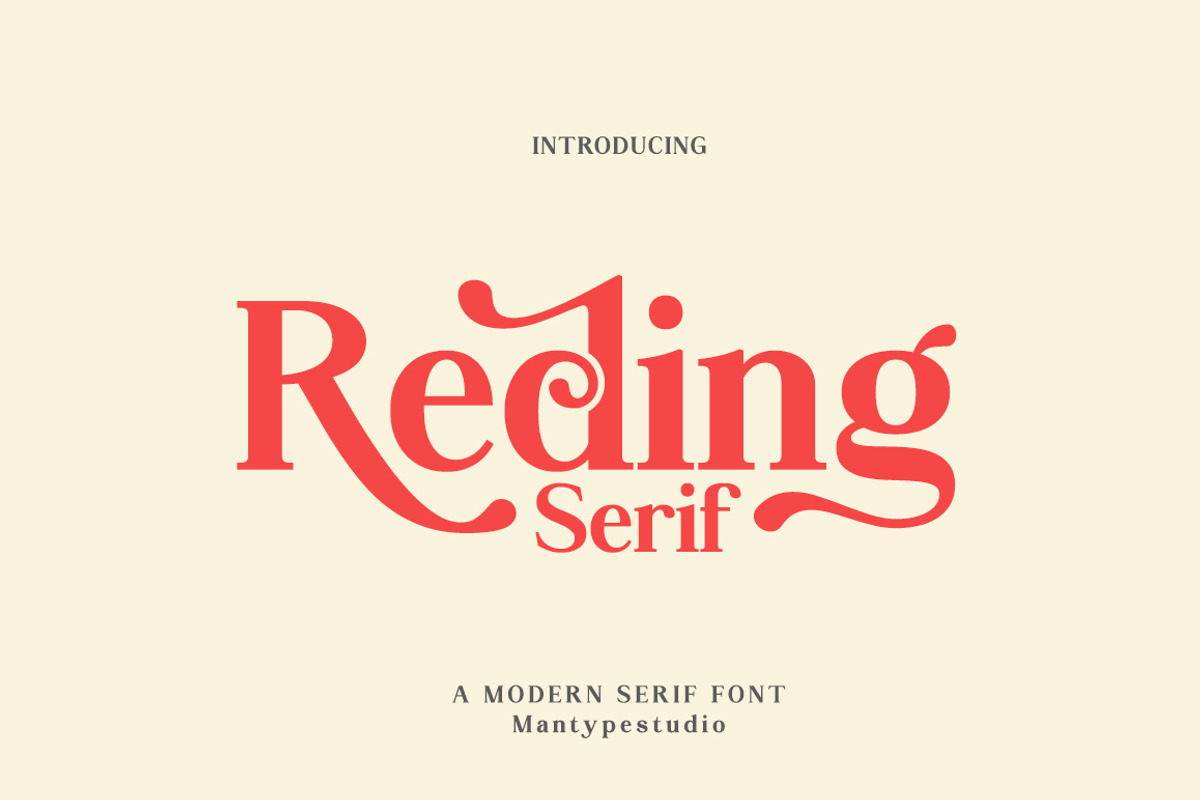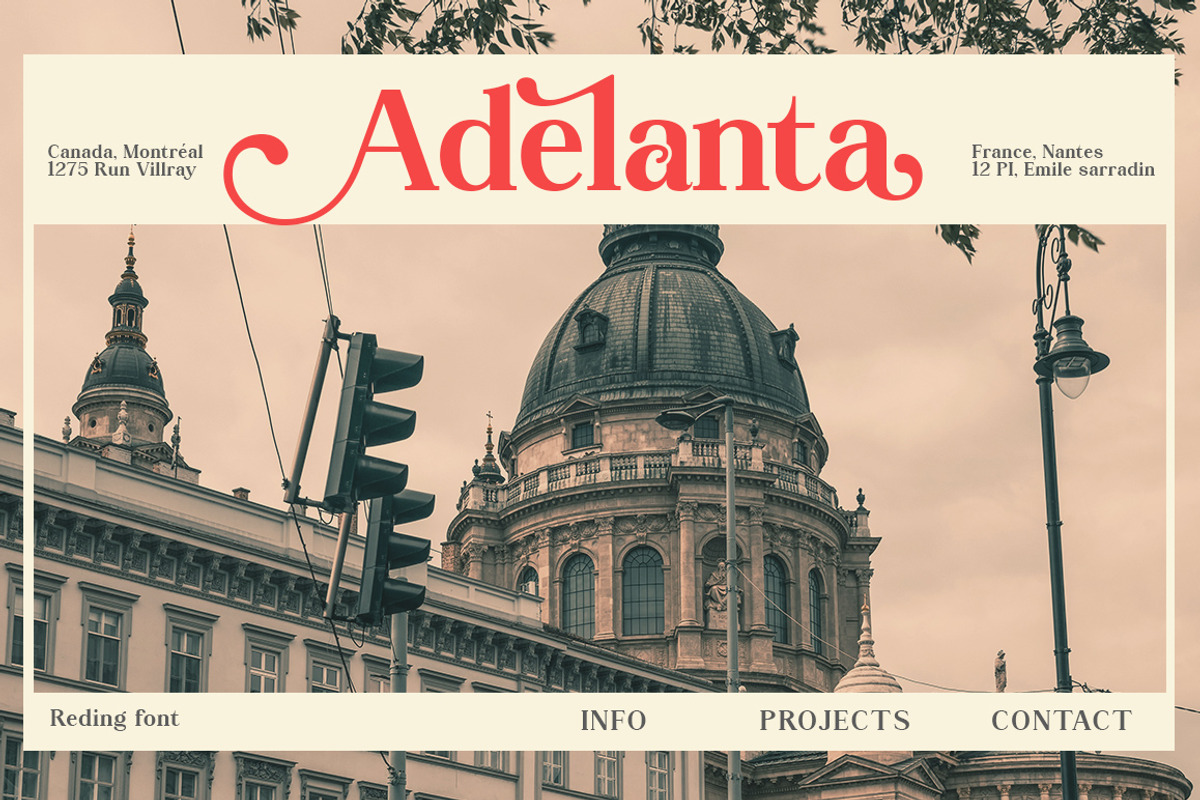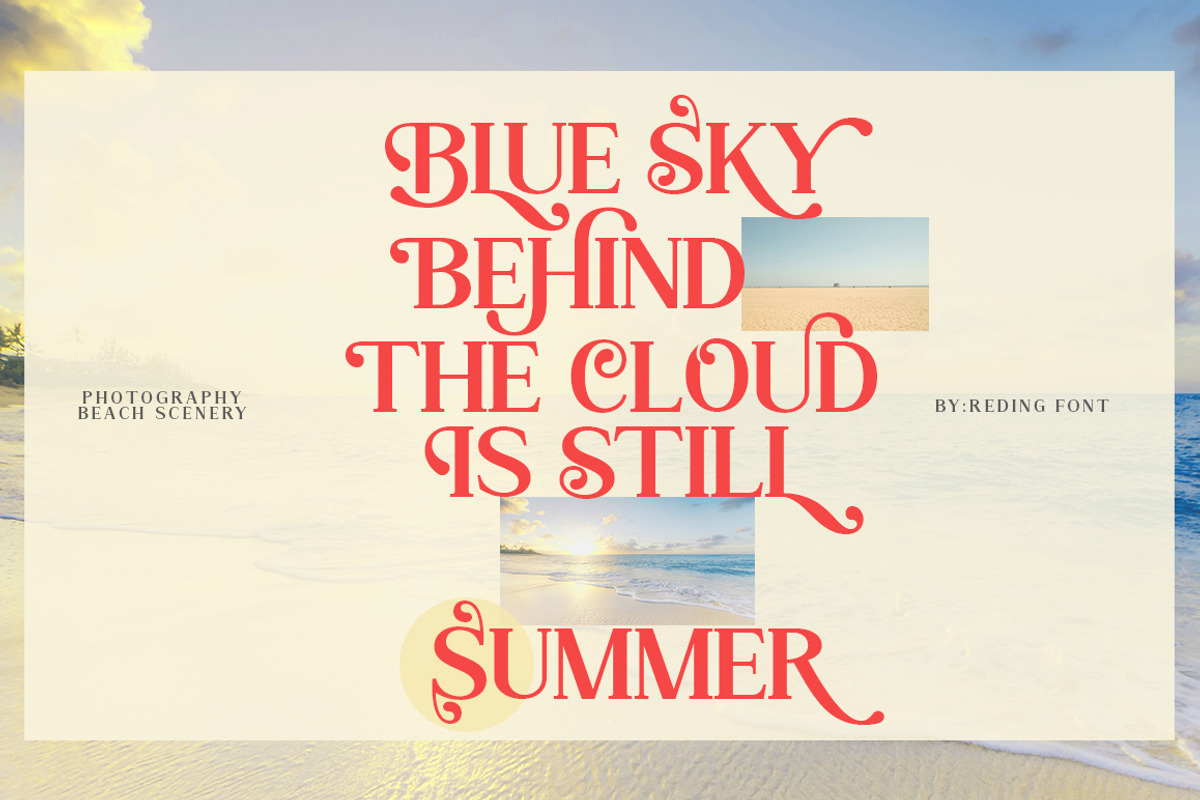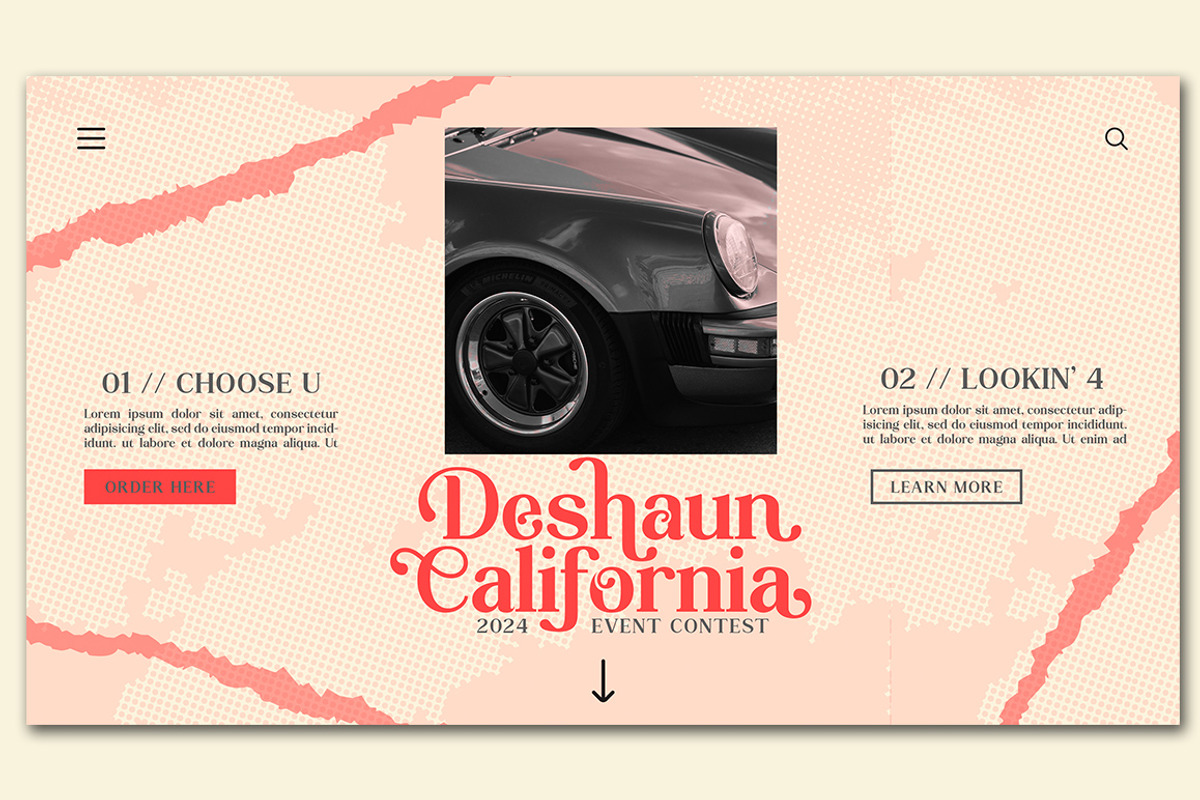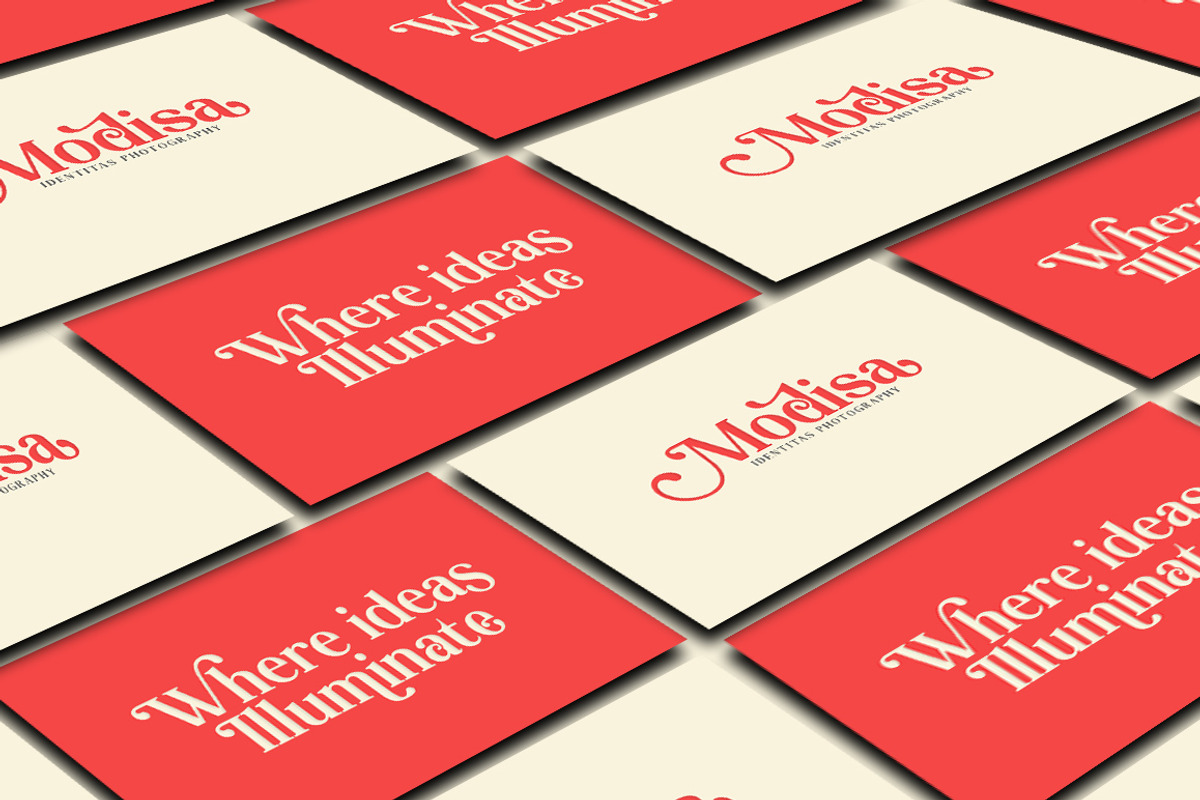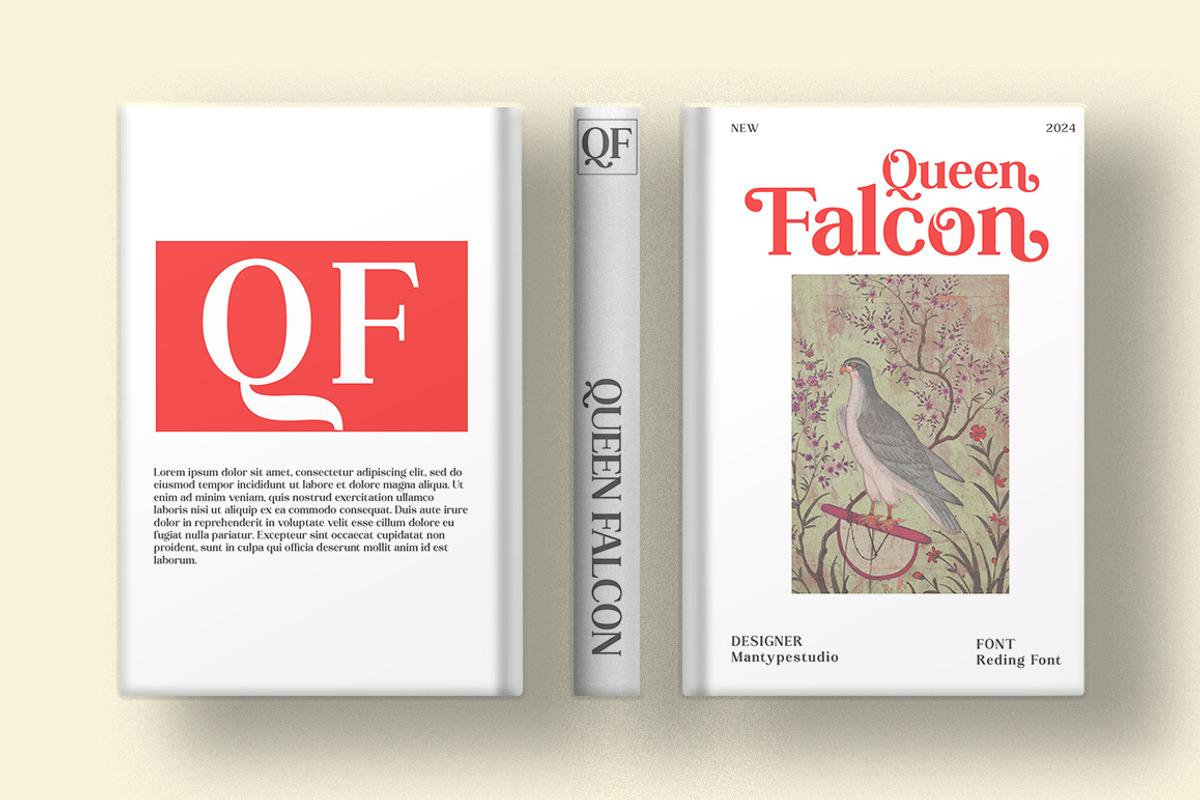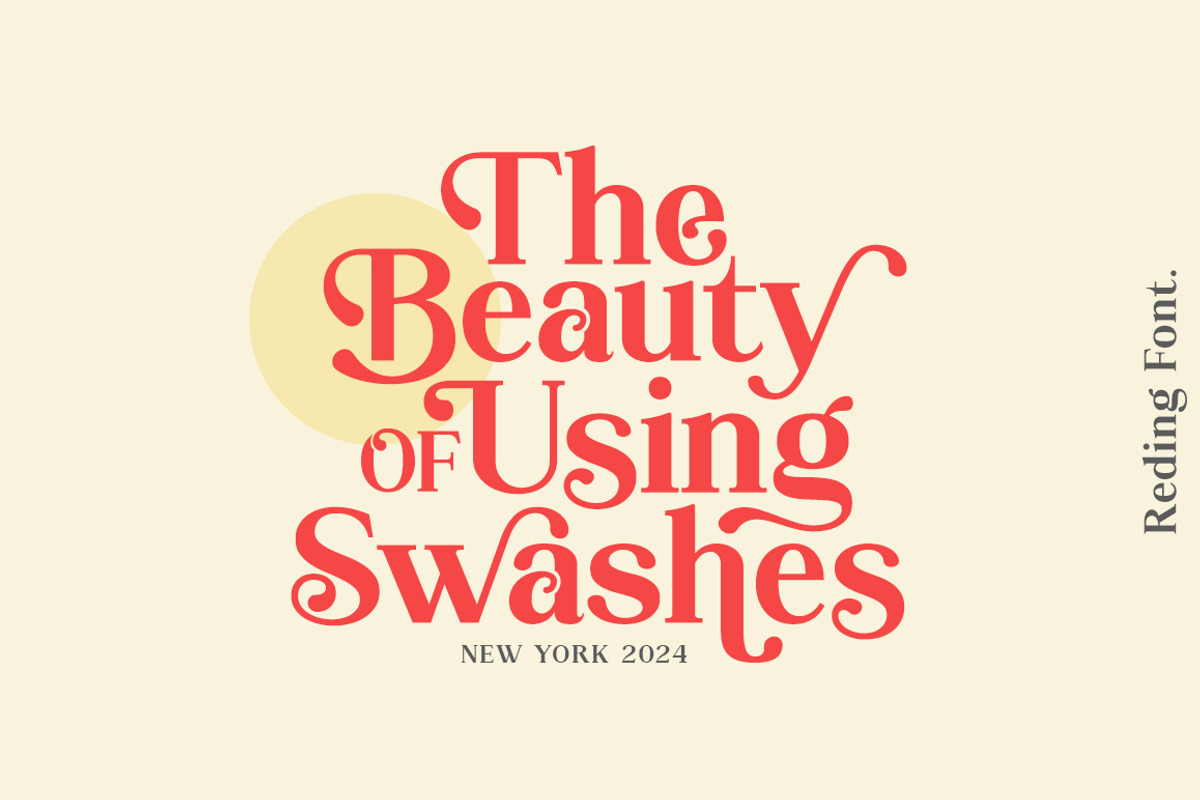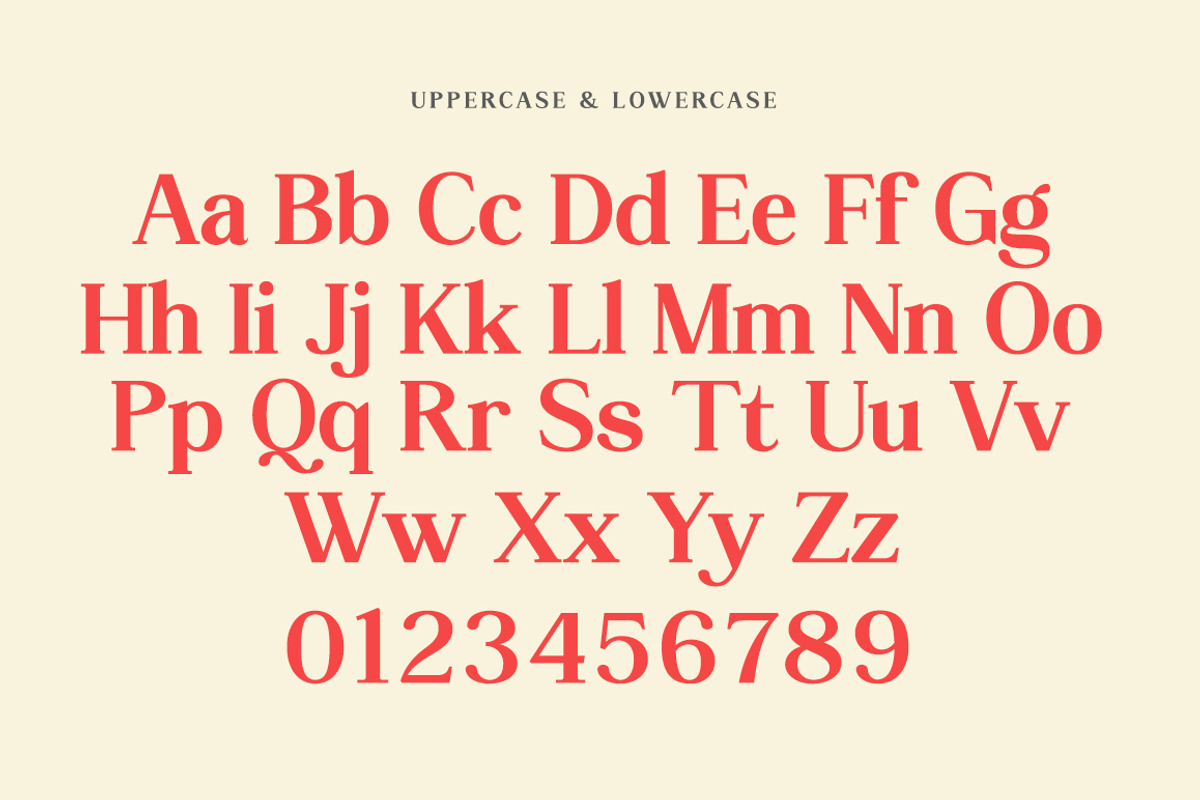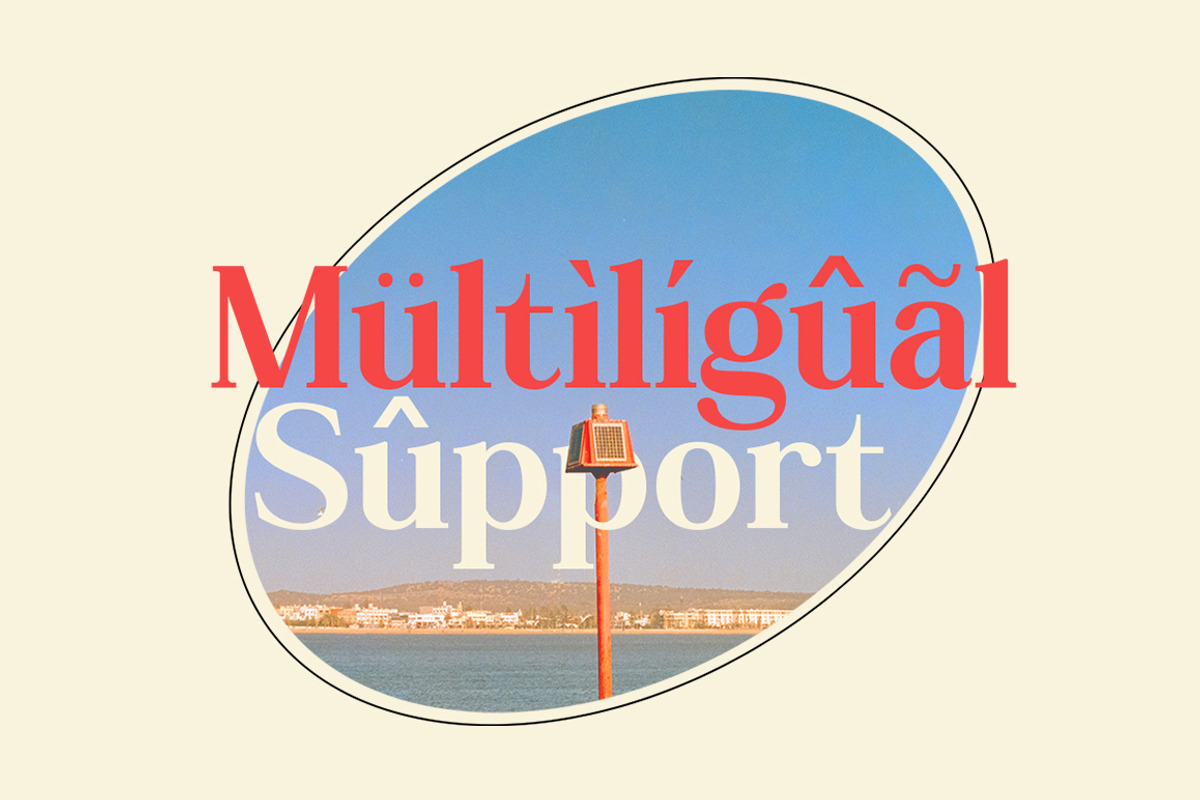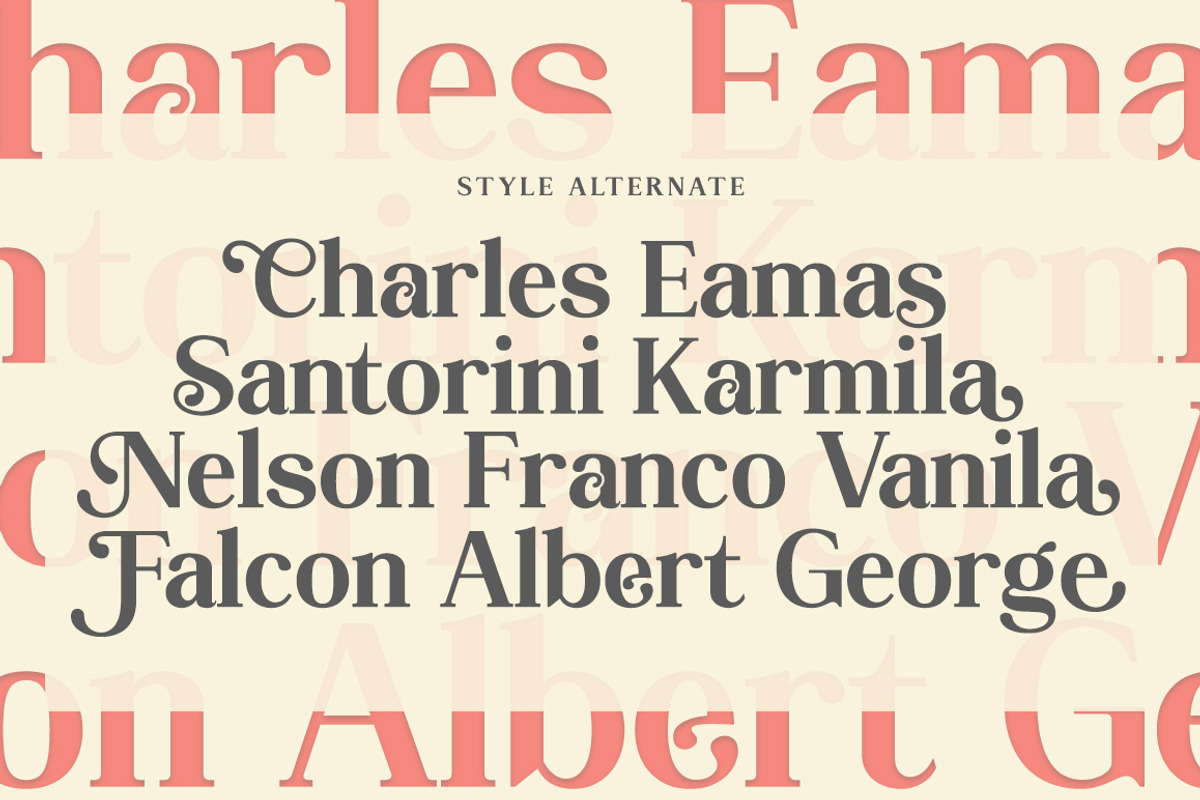
Reding
Reding is a classic, elegant, and unique font that has many flowing style alternatives and also uses ligatures to connect letters smoothly. Perfect for branding, logos, invitations, mastheads and more. Reding has 179 alternatives for upper and lower case letters as well as numbers and punctuation making it very versatile.
Reding also includes complete sets:
Uppercase and Lowercase Multilingual Symbols Number punctuation Fastening Alternative multilingual